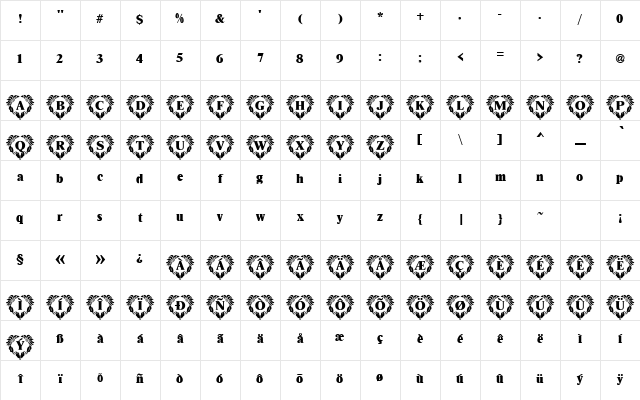
Complete HeartWreath Becker Normal glyph index. Displaying only characters natively supported by HeartWreath Becker Normal font.
HeartWreath Becker is a composed and adaptable typeface that performs quietly and consistently across a wide range of design contexts.